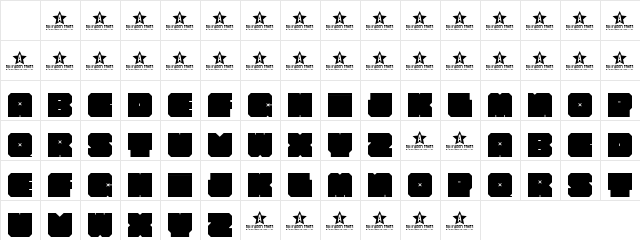
Complete CLUB HAUS FONT Copyright (c) 2009 by Billy Argel. All rights reserved. Bold glyph index. Displaying only characters natively supported by CLUB HAUS FONT Copyright (c) 2009 by Billy Argel. All rights reserved. Bold font.
CLUB HAUS FONT Copyright (c) 2009 by Billy Argel. All rights reserved. is a composed and adaptable typeface that performs quietly and consistently across a wide range of design contexts. Its bold stroke weight gives it real presence on the page.